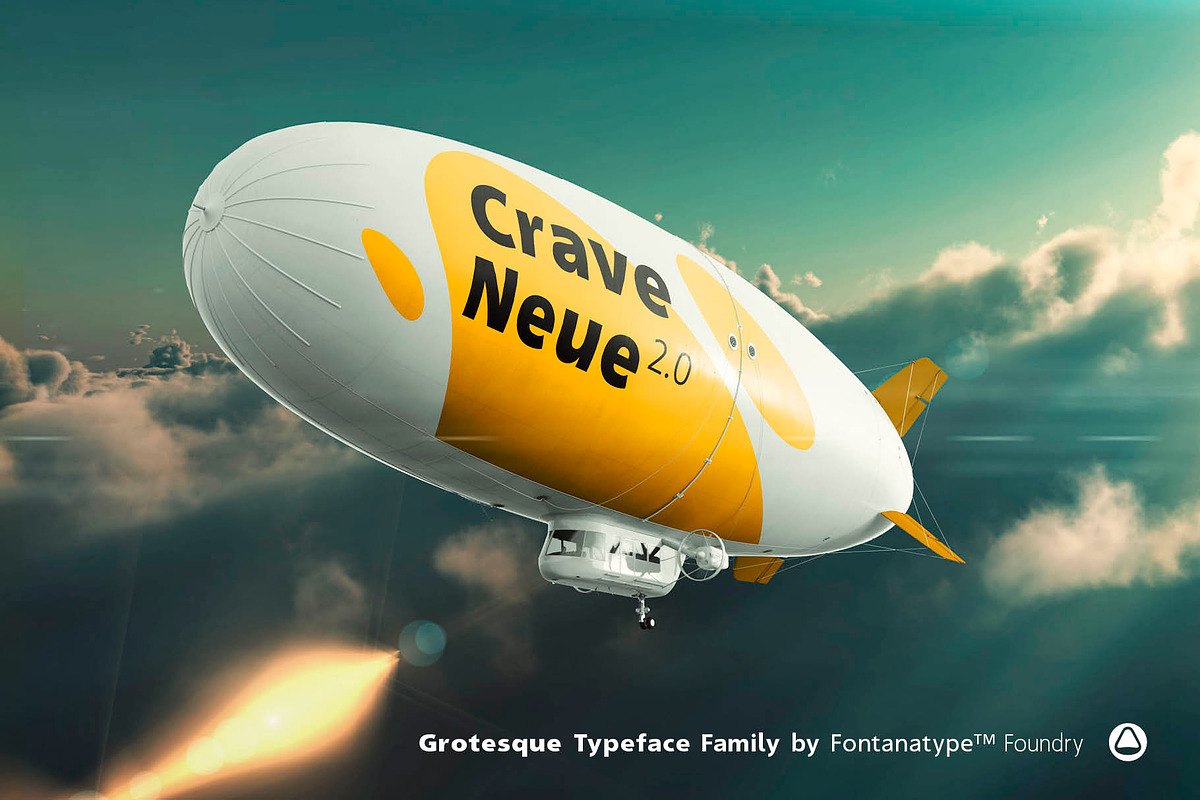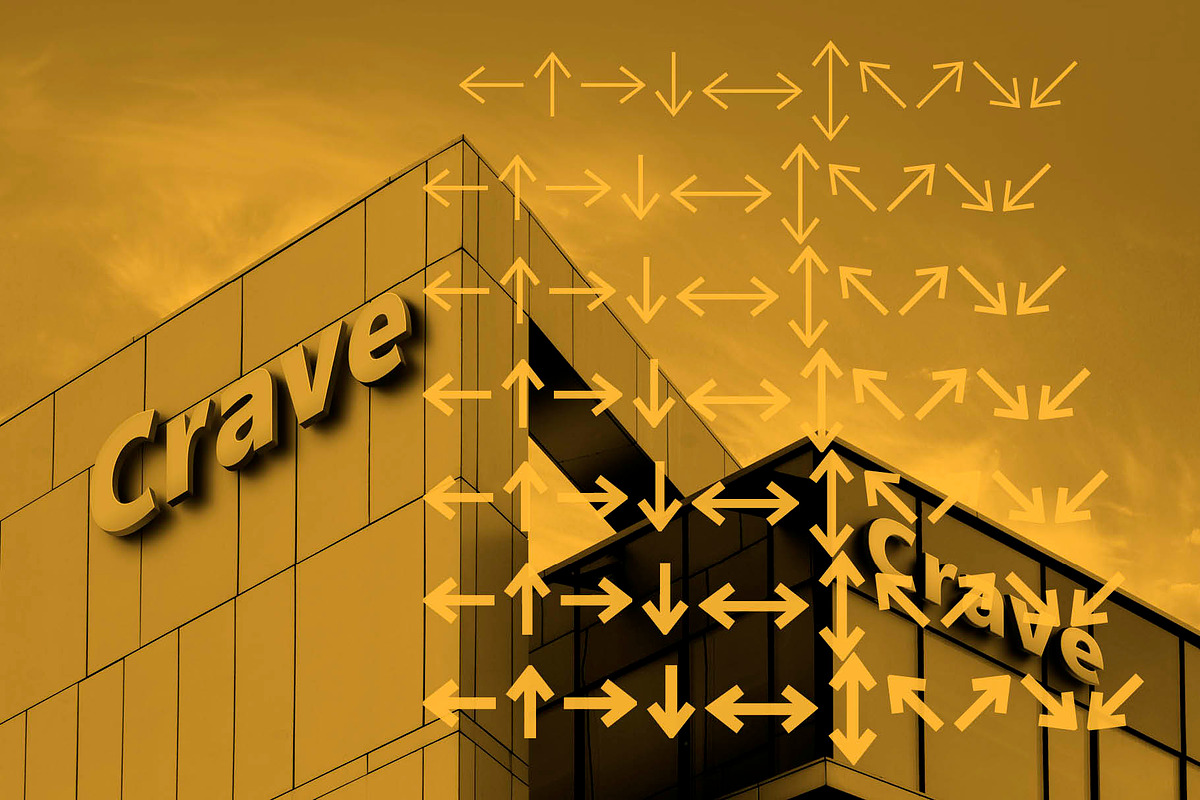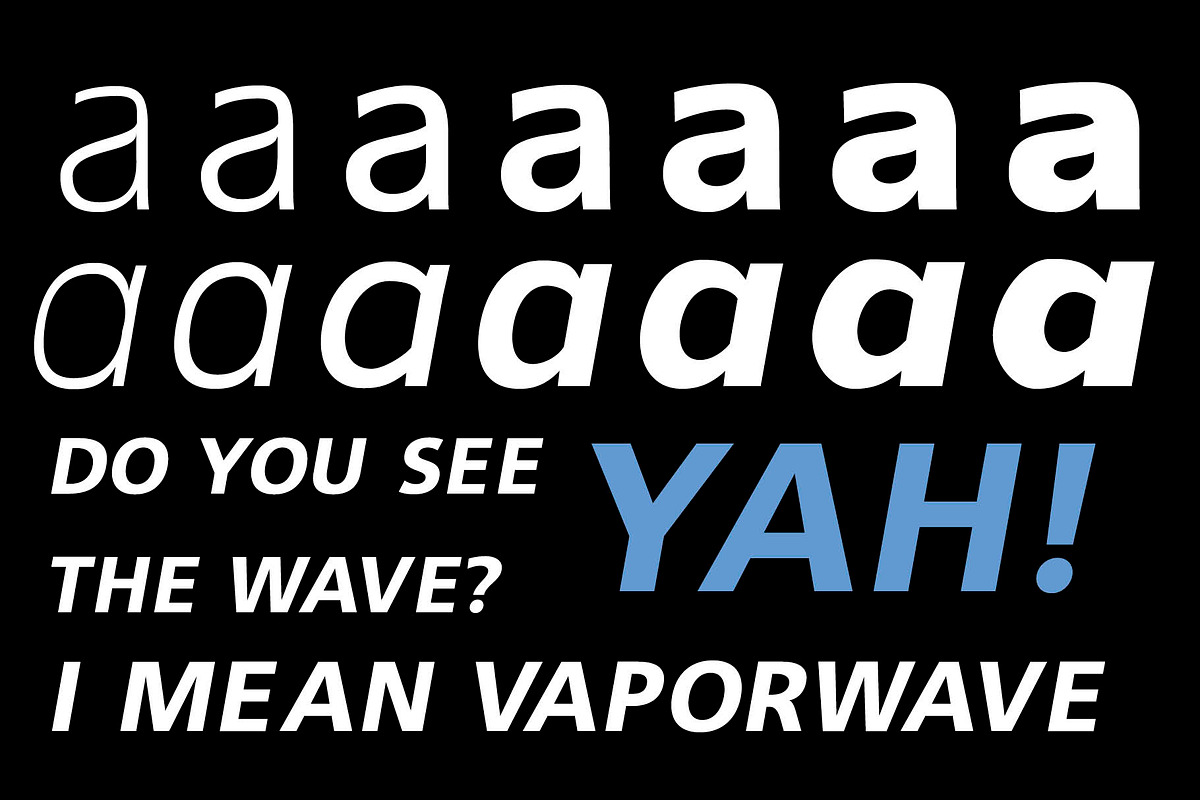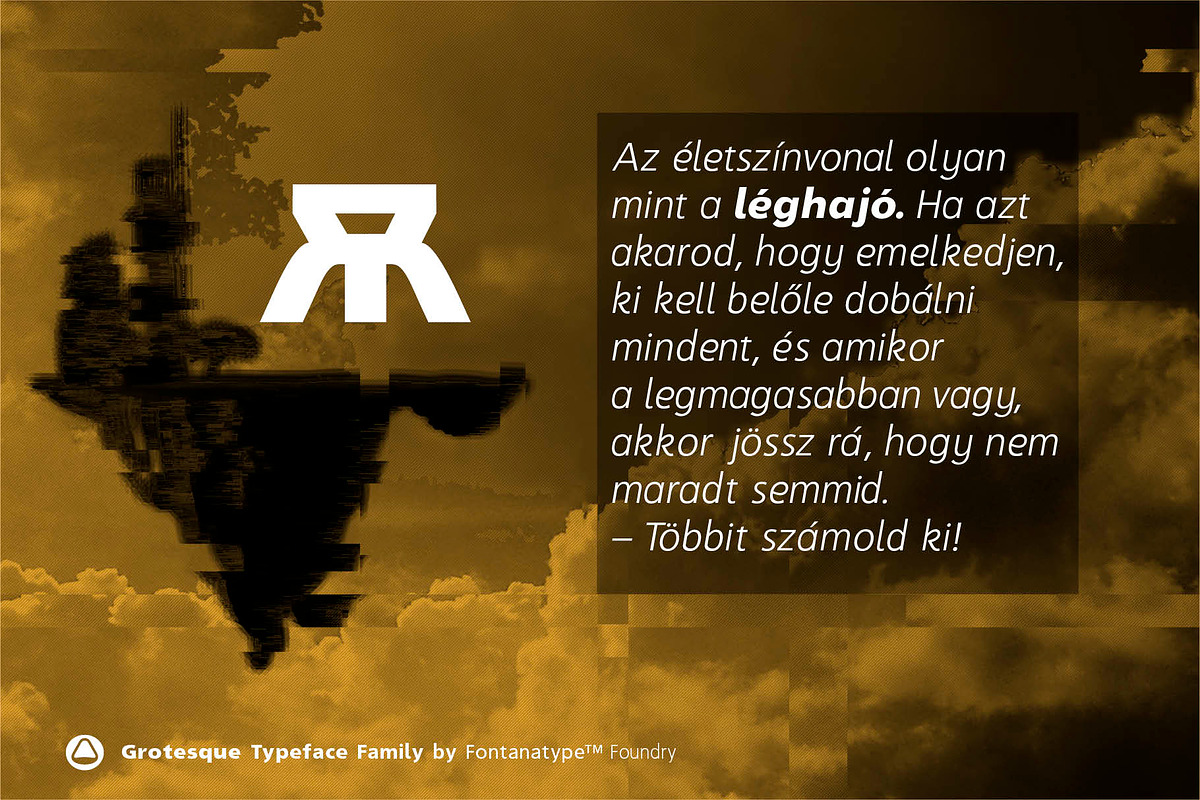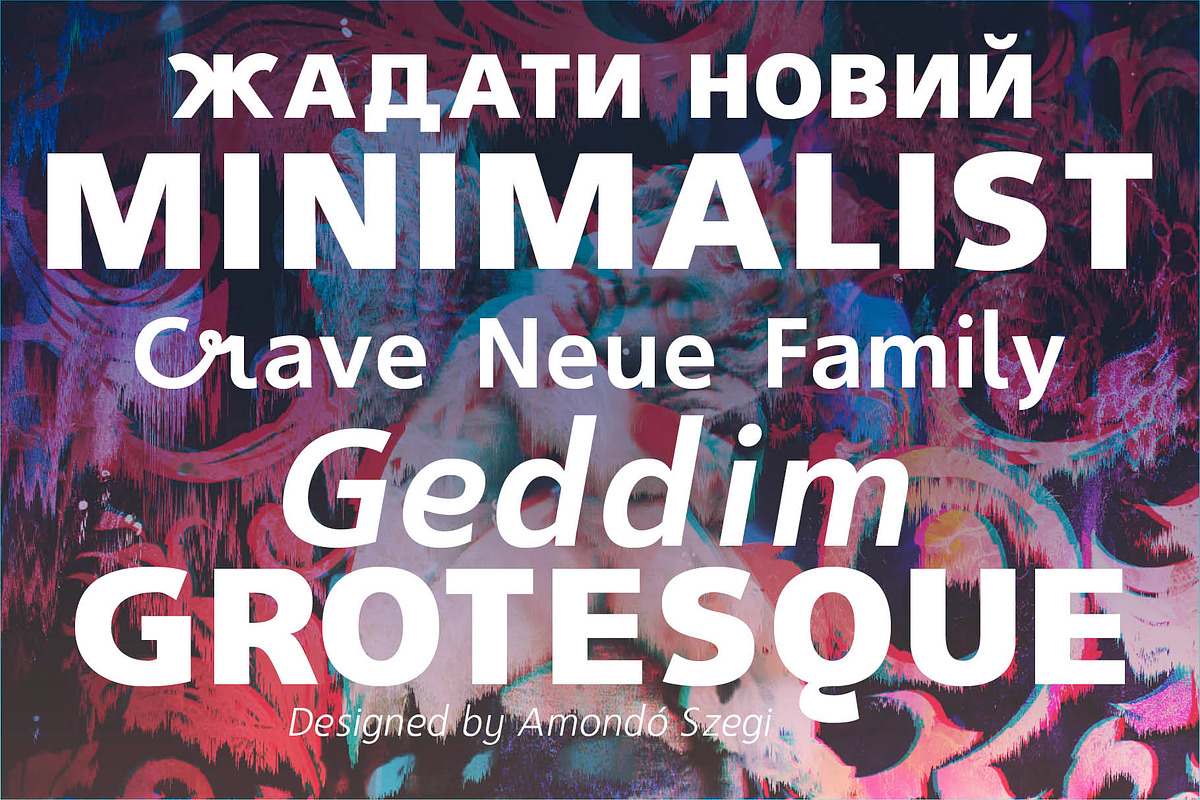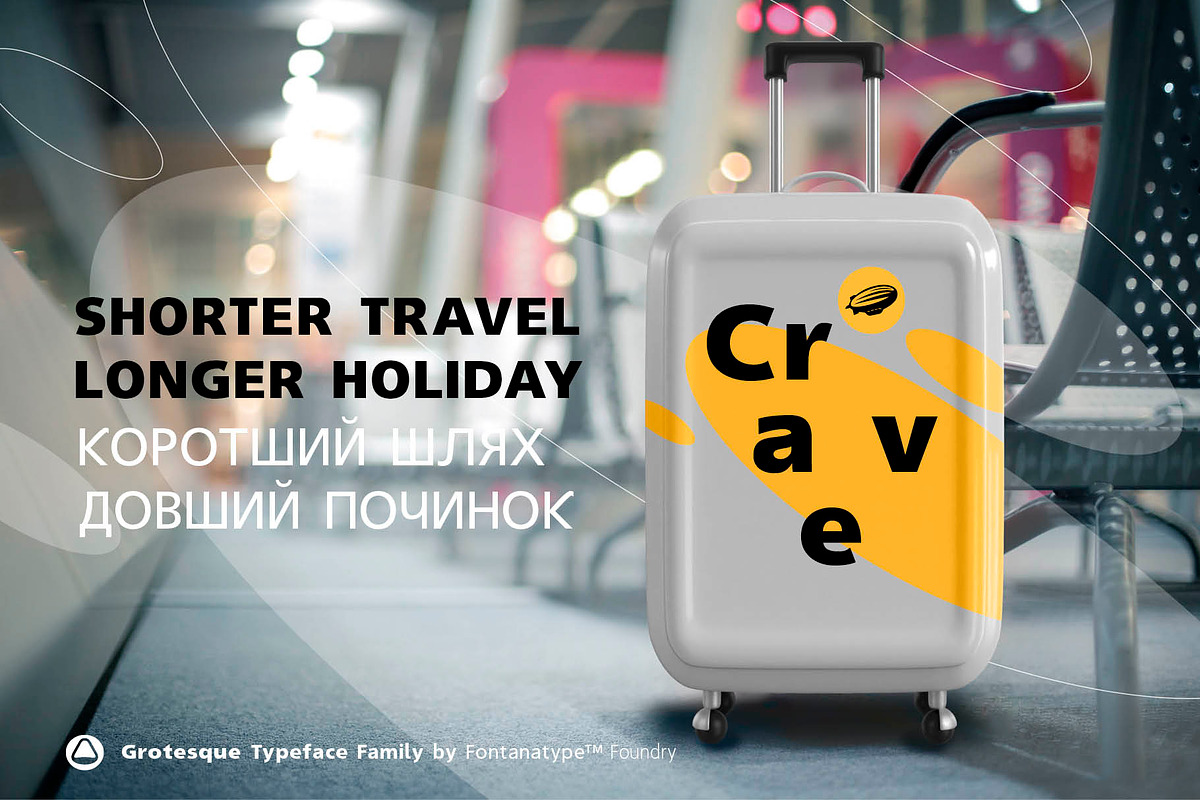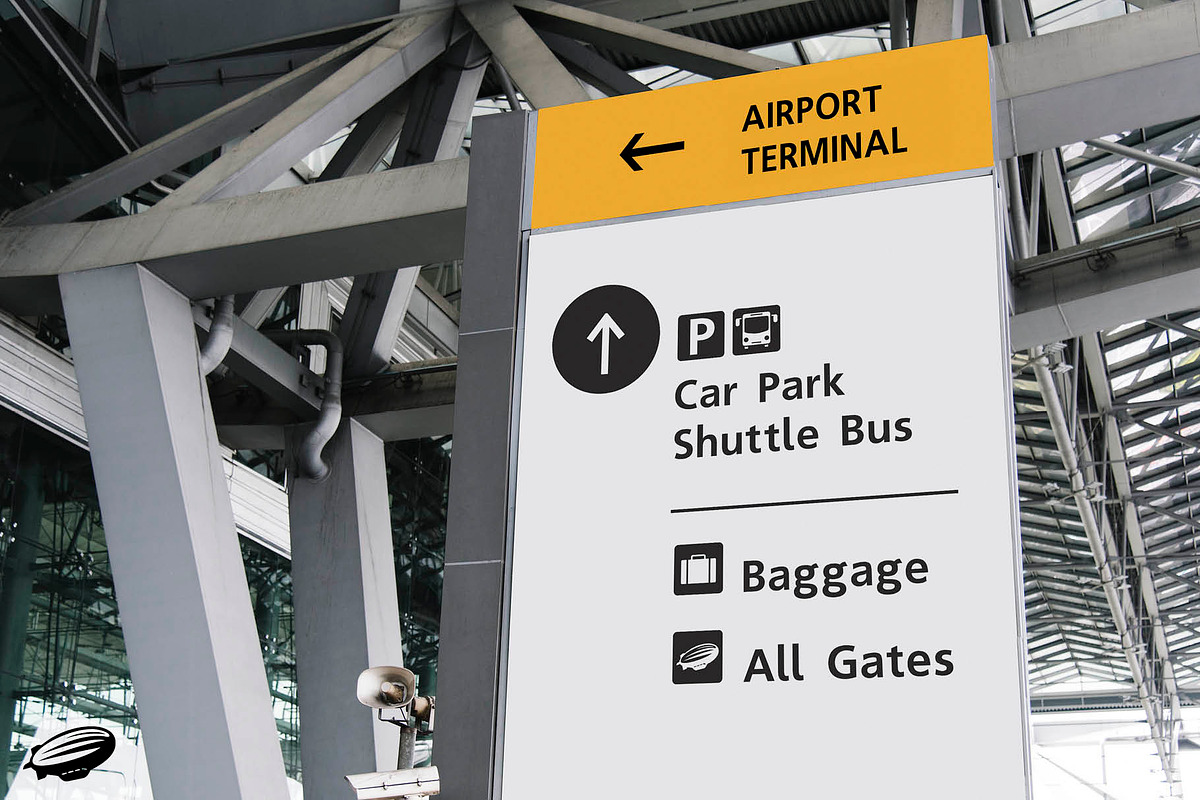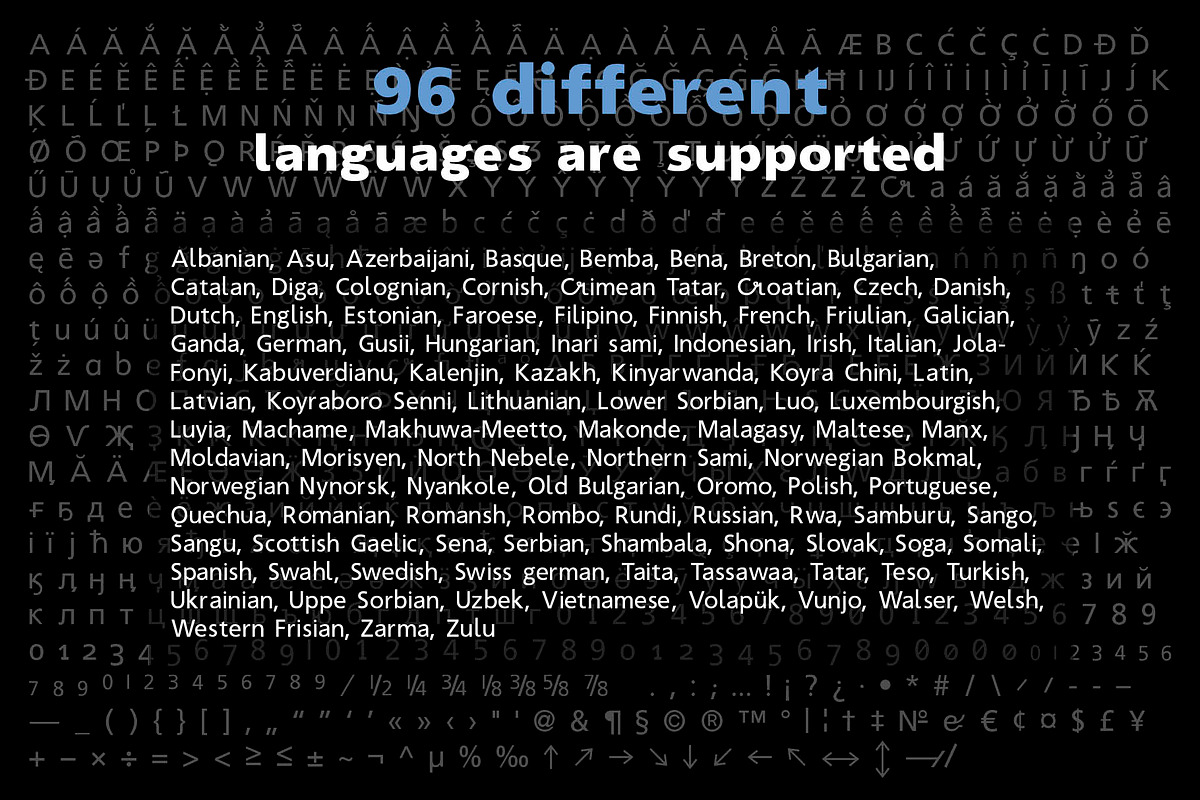
Crave Neue
The Crave Neue 2.0 will return refreshed in 2023. This year it has been totally renewed with some redrawn Cyrillic characters and the refreshed fonts of the Latin alphabet. Special characters have also been added; moreover, every weight has been given tabulated and old-style figures, too. Also joined to the font are some special pictograms. This typeface was made according to the needs of the times. It is very legible; besides, it is pretty transparent not to be intrusive on any surface. From now on, it is 7 weights, giving enough freedom to every field of usage. Despite its “grotesque” feature, it has some unique characteristics borrowed from handwriting for instance the lower case ‘k’ ‘l’ or the upper case ‘K’. Many letters have their alternative versions thus e.g. in the regular version the font ‘y’ ‘g’ or in italics the font ‘r’. The Crave Neue can be well-applied in a wide variety of layouts including mobile apps, magazines, newspapers, and books. The history of Crave Neue dates back to approximately 2008 when the first version was completed for Hungarian Airlines. In 2019, it was also included in Canva's offer. The typeface family supports 96 languages. It is available on every platform in Opentype and WebFont. Since September 2019, extended Cyrillic and Vietnamese support!